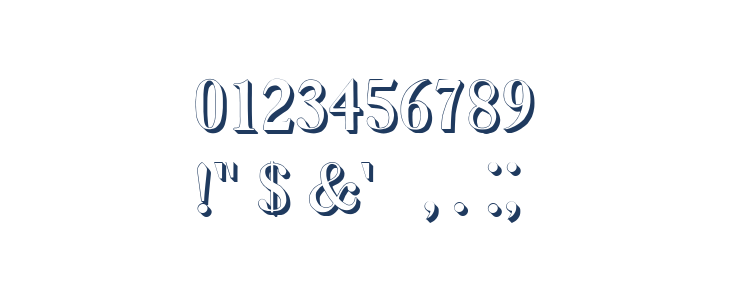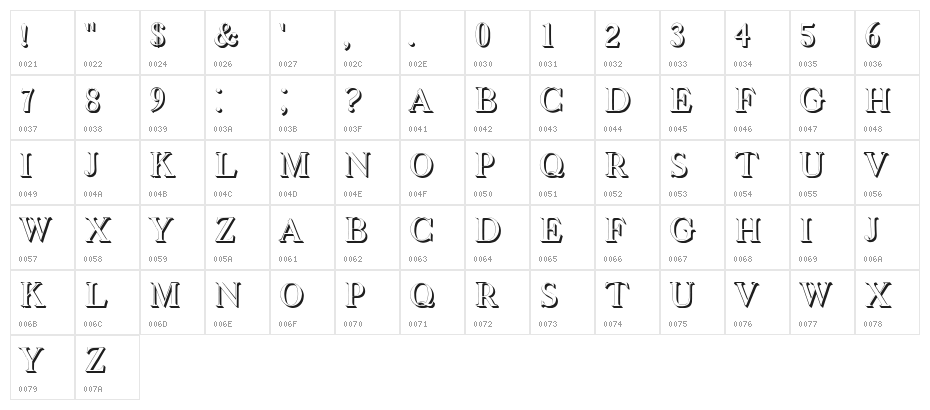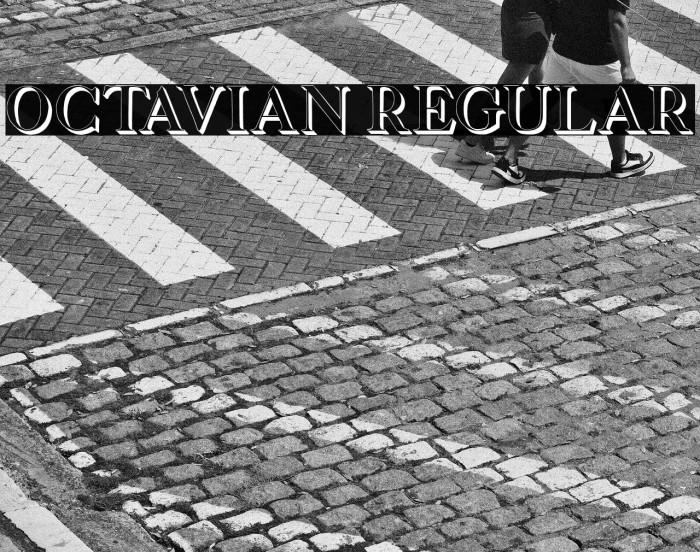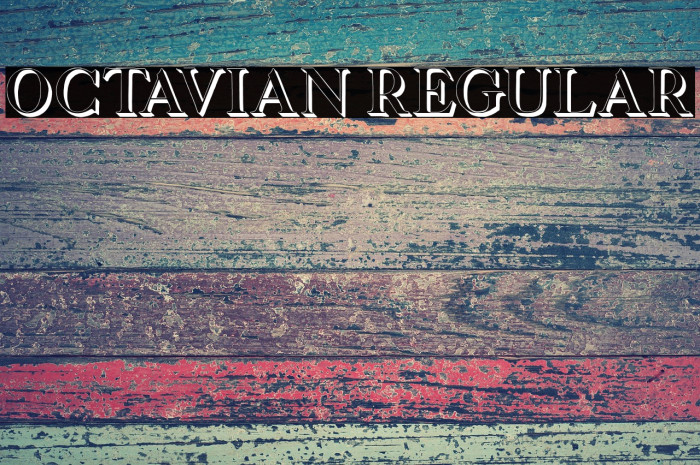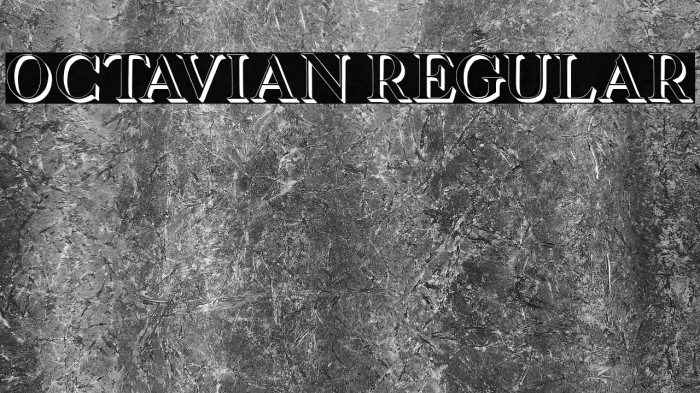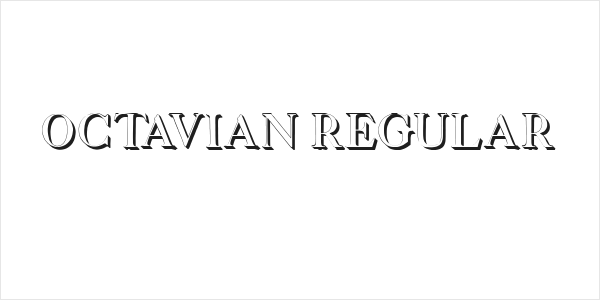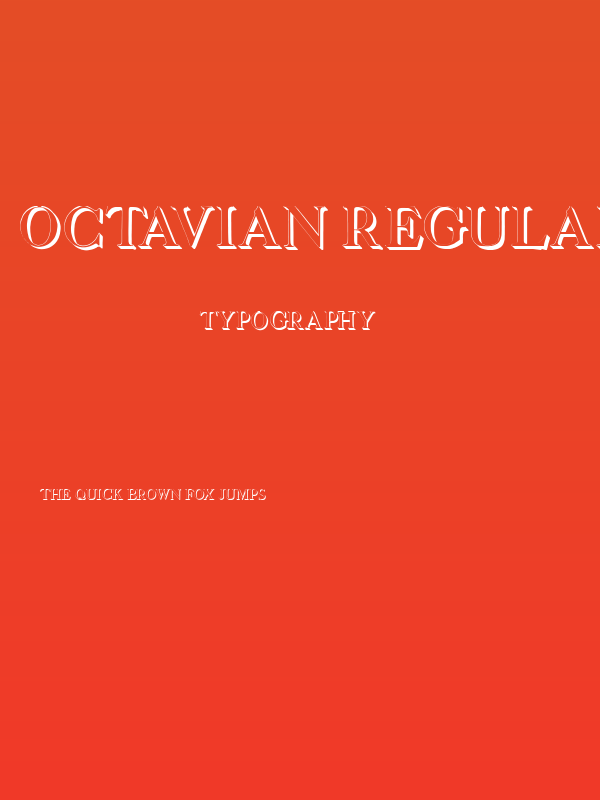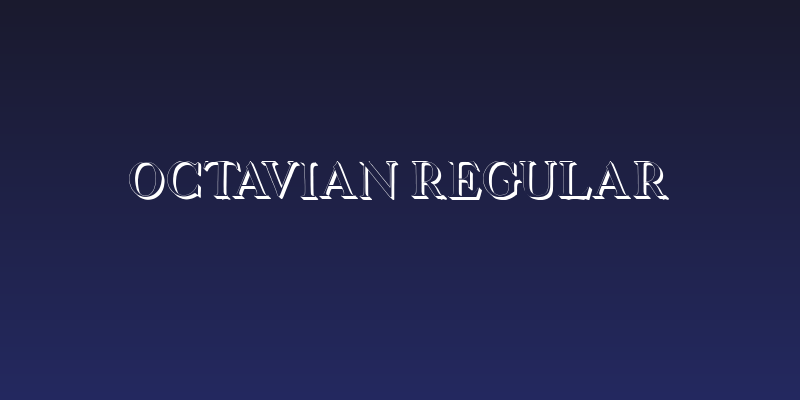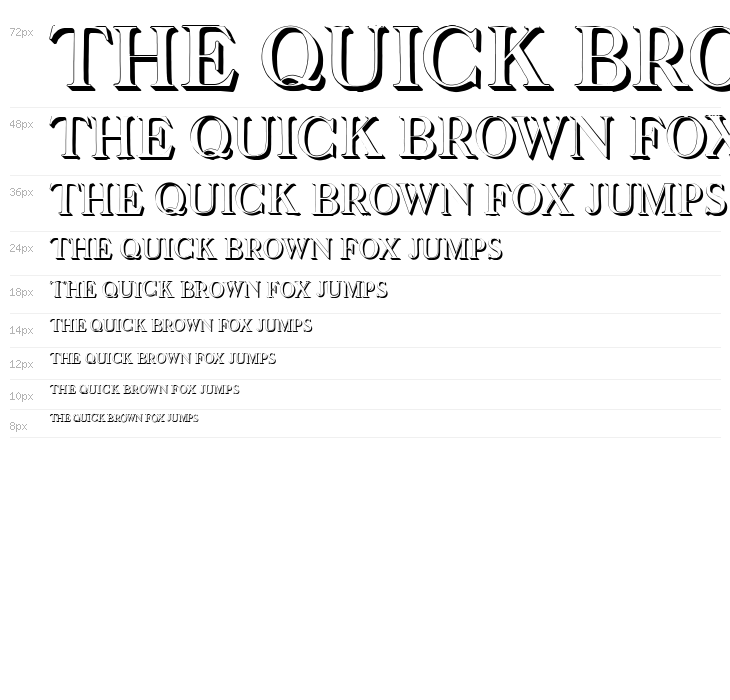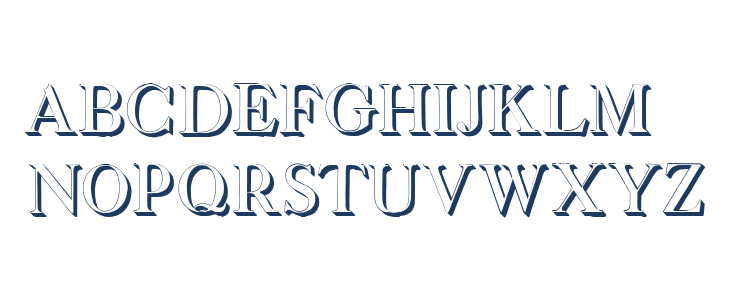
Octavian Regular Font
Octavian Regular Description
This font features a classic serif style with a modern twist, characterized by its elegant and refined letterforms. The strokes are well-defined with a medium contrast, giving it a sophisticated appearance. The serifs are sharp and pronounced, adding a touch of formality and tradition. The overall design is balanced and harmonious, making it suitable for a variety of applications. The numerals and special characters maintain the same level of detail and elegance, ensuring consistency across all text elements.
| Proposed Projects | Ideal for use in formal documents, book covers, editorial design, and branding projects that require a touch of sophistication. |